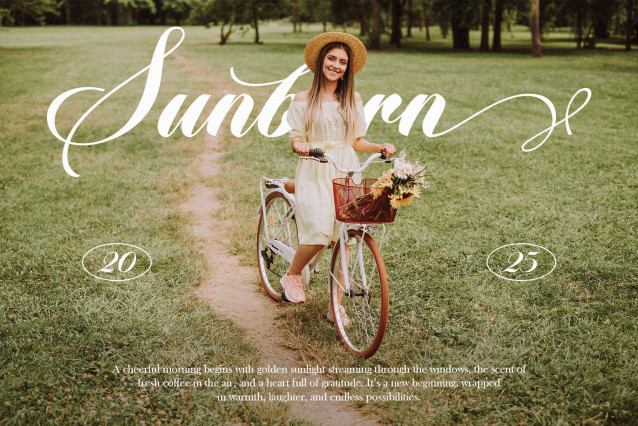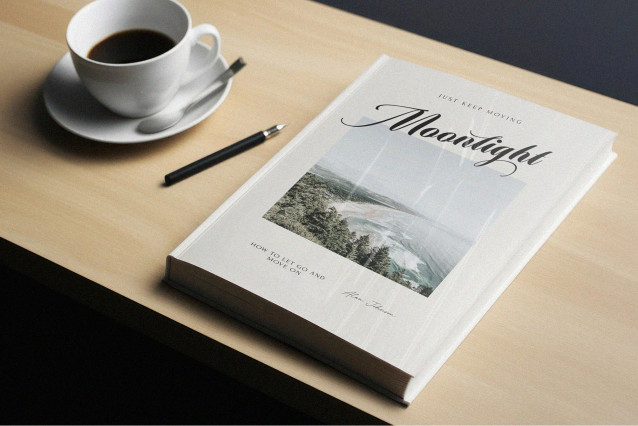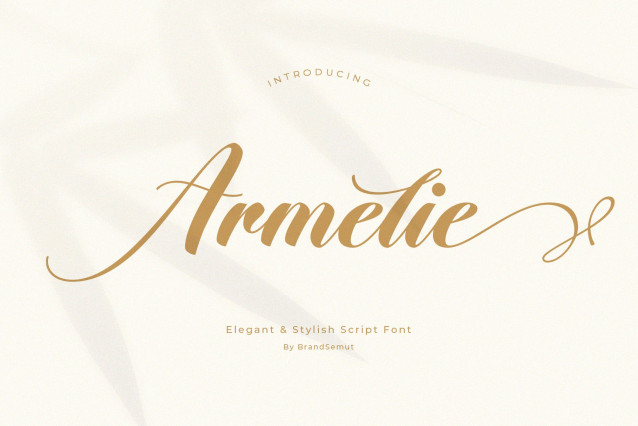
Armelie Font
Armelie Font is an elegant and stylish script font that combines modern sophistication with timeless beauty. Designed with smooth curves, graceful swashes, and refined calligraphy strokes, this font is the perfect choice for projects that require a classy and luxurious handwritten touch.
Whether you are working on branding, wedding stationery, packaging, or editorial design, Armelie adds elegance and personality to your work. Its versatility makes it suitable for both digital and print media, ensuring your designs always look professional and captivating.